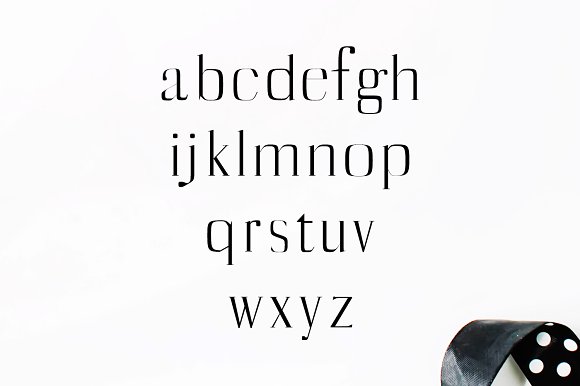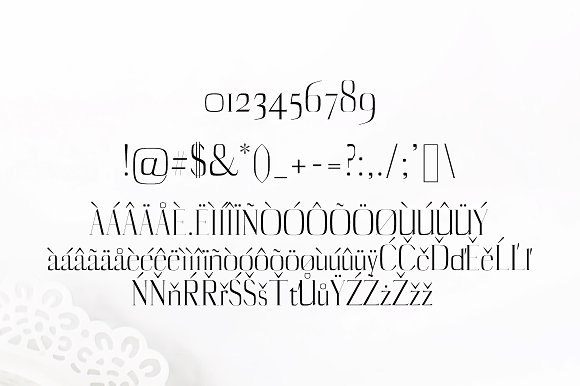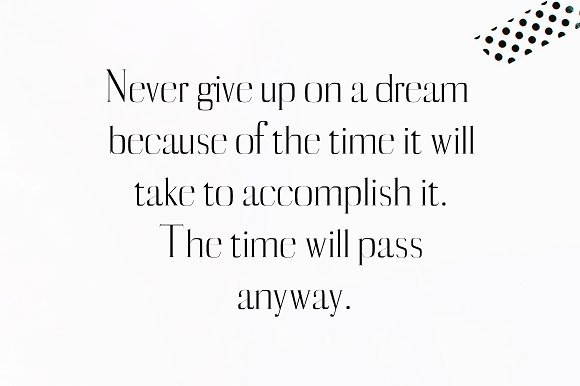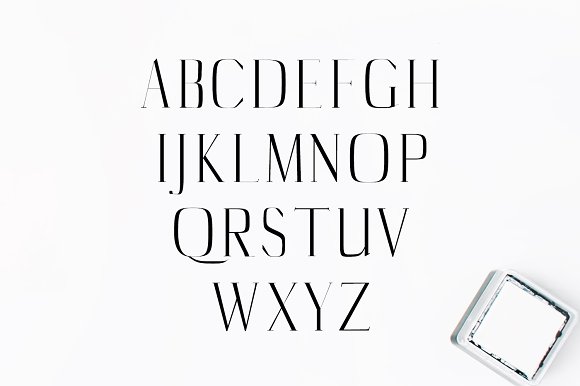
Catheryn Serif 4 Font Family Pack
Catheryn Serif Typeface is a clean 4 font family pack, It features unique and modern serif look and feel. Perfect for gorgeous logos, titles, web layouts and branding. It looks gorgeous in all caps with a wide-set spacing if you want to try a classy look, or beautiful on its own in capital and lowercase letters for something completely timeless.